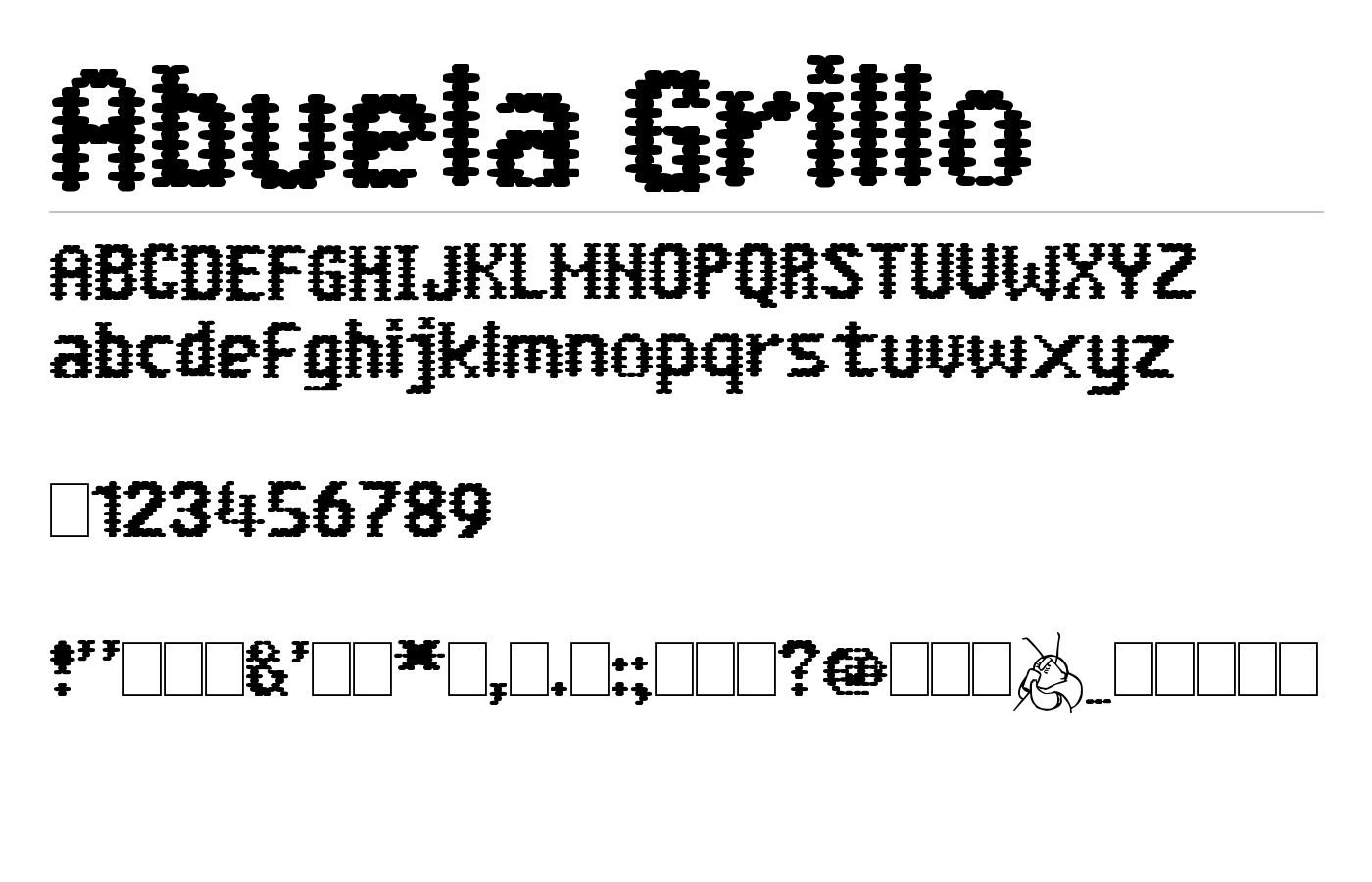
Abuela Grillo is a unique sans serif font with a playful, pixelated texture that resembles stitched or beaded patterns, giving it a handcrafted, crafty feel. Its monospaced, geometric letterforms maintain clarity while injecting a quirky personality, making it ideal for creative projects, informal branding, or eye-catching headlines that seek to convey originality and warmth. This font works especially well in designs that want to blend modern digital style with a touch of folk-art charm.
Abuela Grillo Font
About Abuela Grillo Font